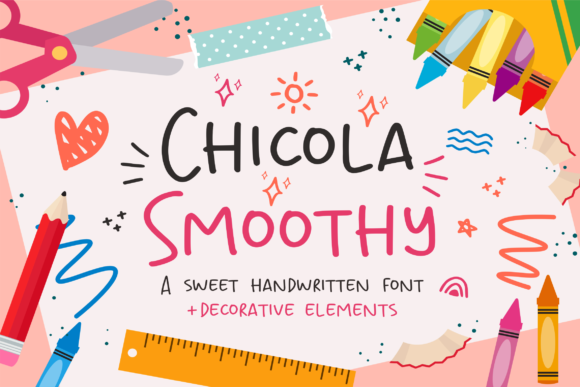
Discover the Perfect Handwritten Touch with Chicola Smoothy Font
As a designer, there’s nothing quite like the feeling of finding the perfect font to bring a project to life. You’re brainstorming ideas, scrolling through your favorite font libraries, and suddenly – it clicks! You stumble upon a font that captures the essence of your vision, and you can’t wait to see it come together. For me, that moment happened when I discovered the Chicola Smoothy Font, a charming and simple handwritten font that’s perfect for adding a personal touch to any design.
This delightful font is specifically designed for creating chalkboard quotes, teaching materials, and other educational content. With its authentic look, Chicola Smoothy Font adds a realistic feel to your designs that’s hard to replicate with more formal fonts. As a designer, you’ll appreciate the versatility and uniqueness that Chicola Smoothy Font brings to your projects, making it a valuable addition to your font collection.
Chicola Smoothy Font Key Features
- Unique Characteristics: This font boasts a unique blend of smooth curves and geometric shapes, creating a distinctive and eye-catching visual style.
Designer Review: Chicola Smoothy Font
Overall, I think Chicola Smoothy Font is a solid addition to any designer’s toolkit. The font has a unique blend of modern and vintage elements that can add a touch of sophistication to any design project.
- ✨ Smooth lines and curves that make it perfect for creative and artistic projects.
- ✨ Unique letterforms that add character and personality to any design.
- ✨ Excellent legibility, even at smaller font sizes.
- ✨ Wide range of language support, making it suitable for global designs.
However, I do think there are a few limitations:
- ⚠️ Limited font weights and styles, which can make it difficult to achieve the desired level of contrast and emphasis.
- ⚠️ Not ideal for body text, as it can be a bit too ornate and overwhelming for large blocks of text.
- ⚠️ Some characters may require manual adjustment to achieve perfect spacing and alignment.
Overall, I would give Chicola Smoothy Font 4 out of 5 stars. It’s a great choice for creative projects, but may not be the best fit for more formal or technical designs. With a bit more development, I think this font has the potential to be truly exceptional.
Tips for Getting the Most Out of Chicola Smoothy Font
To get the most out of Chicola Smoothy Font, try the following:
– Use it for headings and titles to add a touch of elegance.
– Experiment with different font sizes and combinations to create a visually appealing design.
– Pair it with other elegant fonts to create a sophisticated look.
Chicola Smoothy Font is commonly used for:
– Fashion and beauty branding.
– Luxury product packaging.
– High-end website design.
– Wedding invitations and stationery.